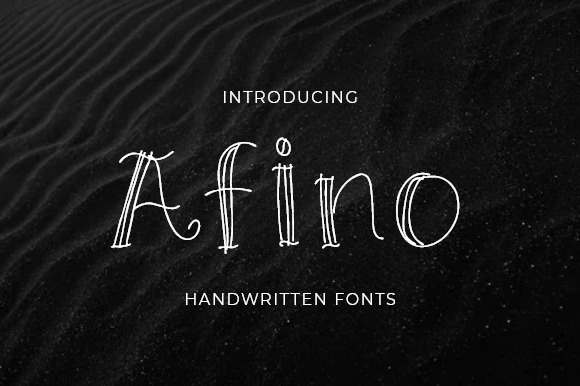
Afino Font
About Afino Font
Afino is a cool handwritten font, carefully handcrafted to become a true favorite. This font will look outstanding in any context, whether it’s being used on busy backgrounds or as a standalone headline!